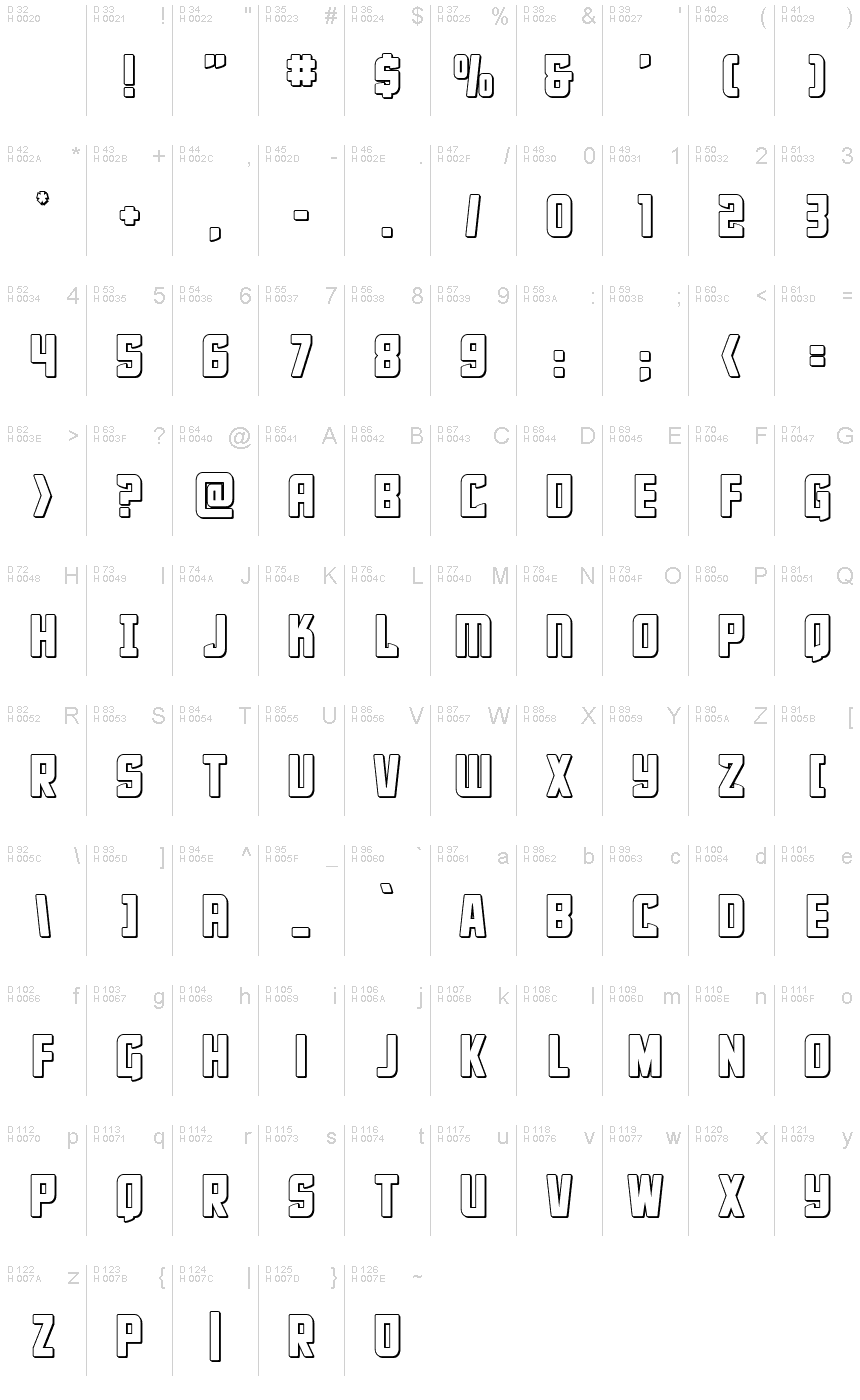
Phantom Storm 3D
Phantom Storm 3D is a futuristic display font designed by Iconian Fonts. With its edgy, 3D techno style and semi-bold weight, it's perfect for projects that require a bold and modern look. Its extra-condensed width makes it ideal for designs that need to fit a lot of text into a small space, such as posters, flyers, and banners. This versatile font can be used for video game titles, movie posters, sci-fi book covers, music album artwork or any project that needs to stand out with its futuristic edge. Bring your designs to life with Phantom Storm 3D!